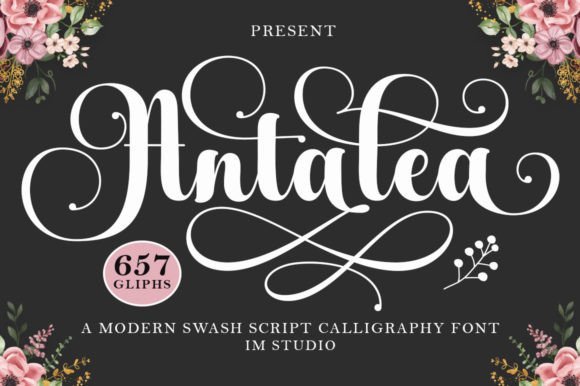
Discovering the Perfect Script: Introducing the Antalea Font
Have you ever found yourself stuck on a design project, searching for that elusive ‘wow’ factor to elevate your work? I know I have! It’s that moment when everything comes together, and you can’t help but feel a rush of excitement. For me, that moment often starts with the perfect font. And that’s exactly what you’ll get with the Antalea Font – a romantic and sweet calligraphy typeface that’s sure to make your designs stand out.
This beautiful font is designed to add a casual, yet elegant touch to your work. With its PUA encoding, you can access all the glyphs and alternates with ease, giving you endless possibilities to experiment and create. Whether you’re a seasoned designer or just starting out, the Antalea Font is an invaluable tool that will help you take your designs to the next level.
- Unique Characteristics: The font features a unique blend of modern and classic elements, with subtle flair and elegance, making it an excellent choice for high-end branding and design projects.
Designer Review: Antalea Font
Overall, I’m impressed with the clean and elegant design of Antalea Font. ✨ Its refined curves and subtle flair make it perfect for creating a sophisticated look in any project. ✨
The font is highly legible, making it an excellent choice for body text and longer content. ✨ It also supports multiple languages, which is a significant advantage for international projects.
Here are some specific strengths of Antalea Font:
- Highly legible and readable
- Supports multiple languages
- Beautiful, elegant design
- Perfect for creating a sophisticated look
- Some users may find the font too formal or conservative
- Limited expressive power, making it less suitable for projects requiring a bold statement
- Not ideal for use in headlines or titles, where a bolder font is often preferred
⚠️ While Antalea Font is an excellent choice for many projects, it may not be the best fit for every situation. Be sure to evaluate its strengths and limitations before making a decision.
Tips for Getting the Most Out of Antalea Font
Here are some tips to get the most out of Antalea Font:
- Use Antalea Font for headings and titles to add a touch of elegance.
- Combine Antalea Font with other fonts to create a unique and stylish design.
- Experiment with different font sizes and styles to achieve the desired effect.